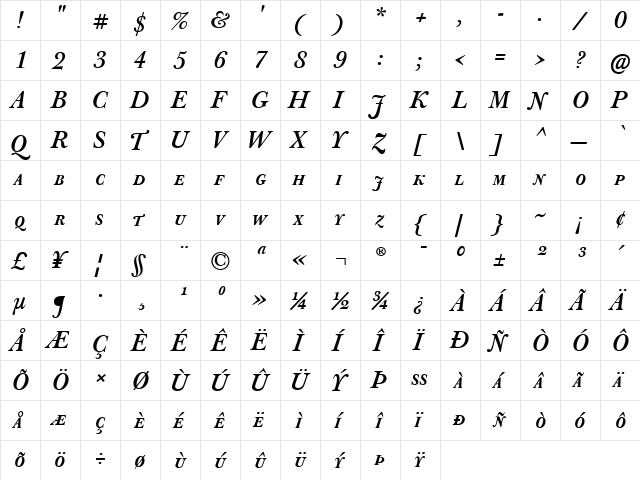
JohnBaskerville Bold Italic Font Preview
JohnBaskerville Bold Italic
Design Context for JohnBaskerville Typeface
JohnBaskerville is a composed and adaptable typeface that performs quietly and consistently across a wide range of design contexts. Its italic angle brings a sense of urgency and motion to the letterforms. The heavy weight commands attention and anchors typographic hierarchies.
Pro Tip: Use JohnBaskerville for emphasis, pull quotes, and subheadings where its slanted energy can add rhythm to the layout.